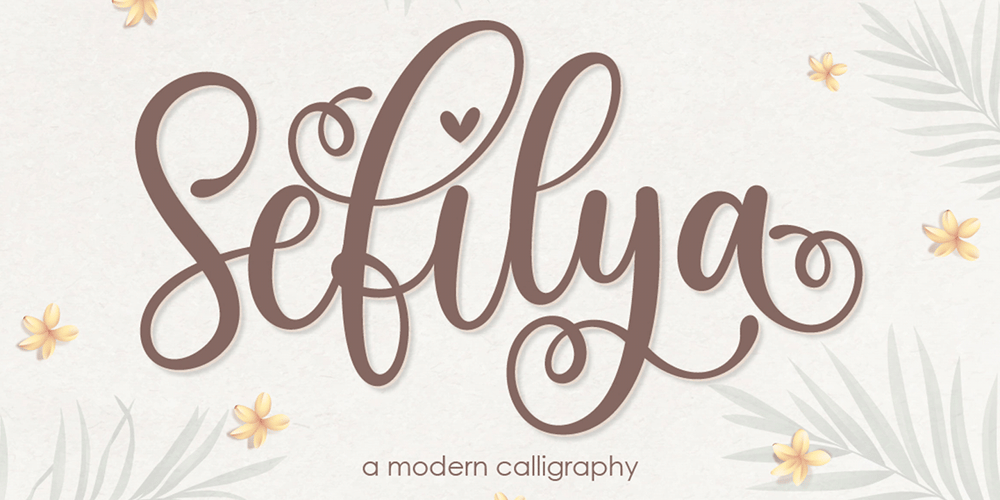
Sefilya Script Font Family was designed by Rinto Dwi Nugroho and published by Almeera Studio. Sefilya Script contains 1 styles and family package options. Sefilya Script is a beautiful script font with many alternative styles, this font looks natural, elegant and perfect for any extraordinary project.Sefilya Script is suitable for various products such as invitations, product packaging, quotes, product design, crafting, labels, photography, watermarks, logos & branding.Everything can be accessed using software that supports Opentype, such as Adobe Indesign, Adobe CS Illustrator, Adobe Photoshop CC, and Corel Draw.etc.Thank you 🙂